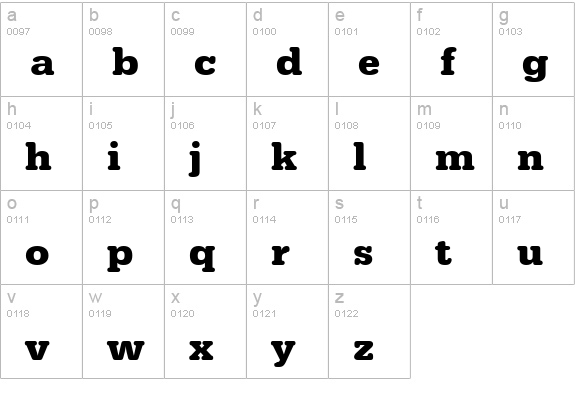
URWTypewriterT Bold Font Details
URWTypewriterT Bold is a strong, high-contrast variant in the URWTypewriterT typeface family \xE2\x80\x94 well suited to headlines, attention-grabbing titles, and strong calls-to-action.
URWTypewriterT Bold font is a perfect choice for those seeking a bold and powerful typewriter-style font. With its sturdy and robust appearance, this font is designed to make a statement and grab attention. Featuring a distinct and timeless typewriter aesthetic, URWTypewriterT Bold font exudes a sense of nostalgia and authenticity. Its clean and precise letterforms are reminiscent of old-school typewriters, making it ideal for projects that require a vintage or retro touch. One of the best aspects of URWTypewriterT Bold font is that it is free! That's right, you can freely download this font at FontsMarket.com. This means that you can use it in any personal or commercial project without worrying about licensing fees or restrictions. Whether you're working on a poster, logo, packaging design, or any other creative endeavor, URWTypewriterT Bold font will add a touch of professionalism and uniqueness to your work. Its bold and commanding presence will ensure that your message stands out and leaves a lasting impression. So why wait? Head over to FontsMarket.com and get your hands on URWTypewriterT Bold font today. Embrace the freedom of creativity and elevate your designs with this remarkable typewriter font.